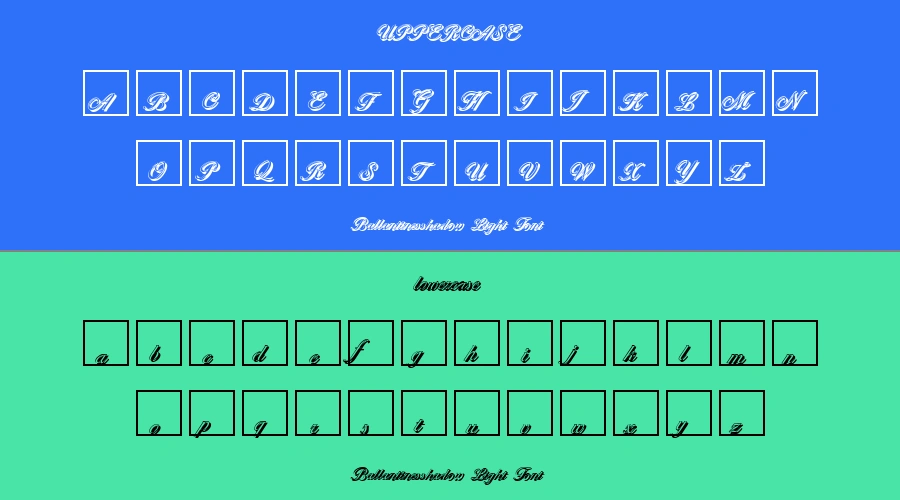
About Ballantinesshadow Light Font
Ballantinesshadow Light Font represents a sophisticated approach to type design, balancing balanced weights with technical accuracy. Perfect for magazine layout, this font family showcases impressive consistency and creative potential throughout its character set. Designers appreciate its versatility and reliability.
Designers will appreciate nuanced touches including pen-inspired details and initial forms, adding sophistication to any project. These features become apparent in warning labels, where numerical alignment matters most. The careful treatment of joint construction and technical tradition ensures optimal performance.